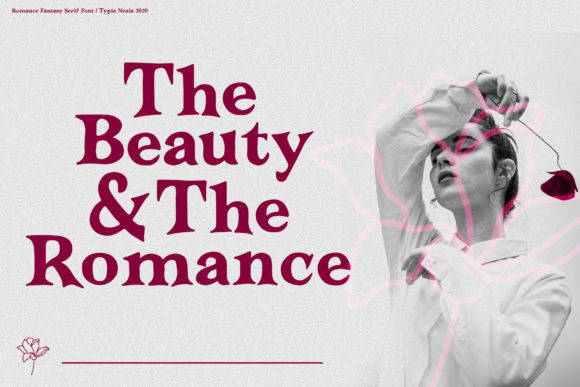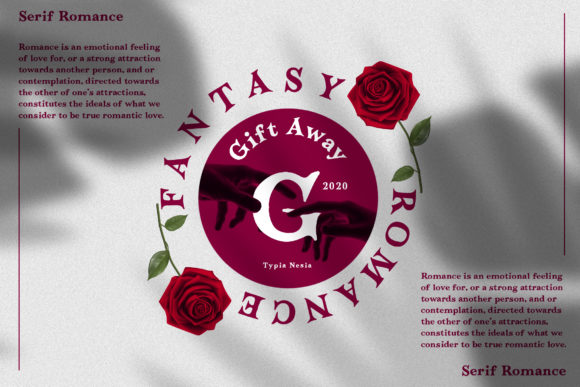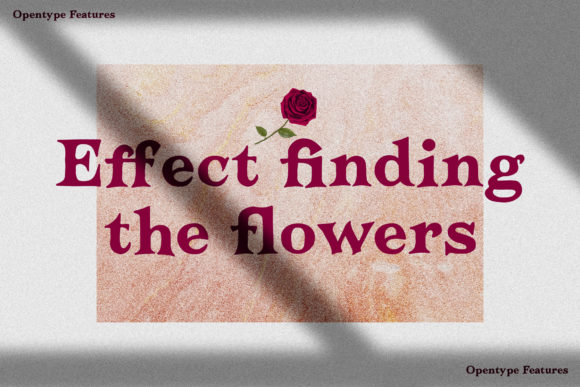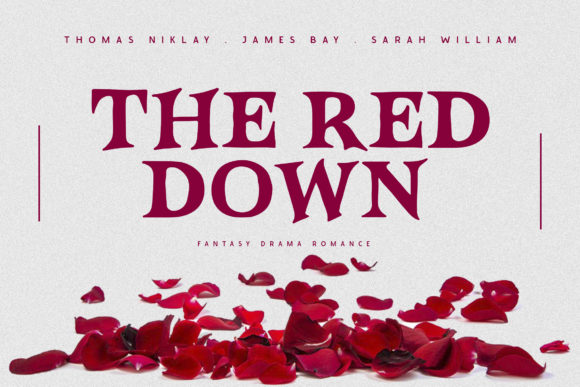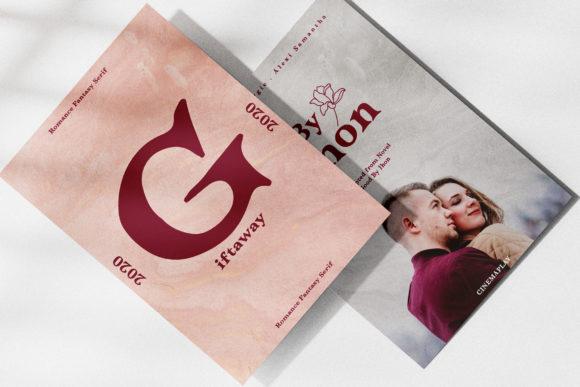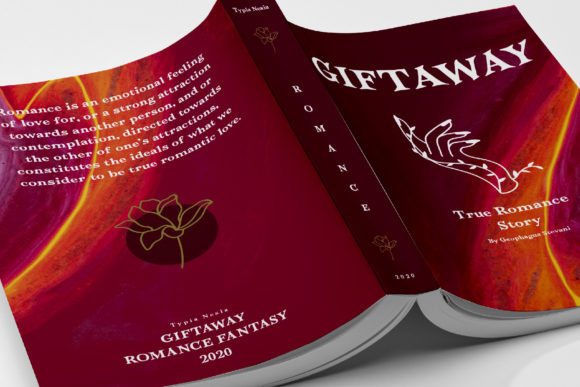
Giftaway Font: Elevate Your Designs with a Bold and Casual Serif
In the world of design, typography plays a crucial role in conveying messages, expressing creativity, and capturing the audience’s attention. When it comes to selecting the perfect font for your project, you want something that not only looks great but also aligns with your brand’s tone and personality. If you’re on the hunt for a bold and casual serif font that can elevate your designs, look no further than Giftaway Font.
Introducing Giftaway Font
Giftaway is a bold and casual serif font designed to add a touch of sophistication and elegance to your projects. With its unique blend of classic and modern elements, this font is perfect for designers and crafters looking to create stunning visual content. Whether you’re working on a luxury logo and branding, classy editorial design, magazine, fashion promotional materials, boutique branding, stationery design, blog design, modern advertising design, card invitation, art quote, home decor, book/cover title, or special events, Giftaway Font is an excellent choice.
Key Features of Giftaway Font
- Bold and Casual: Giftaway Font boasts a bold and casual style that’s perfect for making a statement. Its serif design adds a touch of sophistication, while its casual tone keeps it approachable and friendly.
- Versatile: This font is incredibly versatile and can be used for a wide range of projects, from luxury branding to editorial design, and even home decor.
- Elegant: Giftaway Font exudes elegance and sophistication, making it perfect for high-end designs, fashion promotions, and special events.
- Easy to Read: Despite its bold style, Giftaway Font is easy to read, making it perfect for body text, headings, and titles.
Use Cases for Giftaway Font
Giftaway Font is an excellent choice for a variety of design projects, including:
- Luxury Logo and Branding: Create a lasting impression with a bold and elegant logo that showcases your brand’s personality.
- Classy Editorial Design: Elevate your magazine, newspaper, or blog with a sophisticated font that’s easy to read.
- Fashion Promotional Materials: Make a statement with bold and eye-catching promotional materials that showcase your brand’s style.
- Boutique Branding: Create a unique and memorable brand identity that reflects your boutique’s personality.
- Stationery Design: Add a touch of elegance to your stationery, including business cards, letterheads, and envelopes.
- Blog Design: Create a visually appealing blog that showcases your writing style and personality.
- Modern Advertising Design: Grab attention with bold and eye-catching ads that showcase your brand’s message.
- Card Invitation: Create stunning invitations for special events, including weddings, birthdays, and anniversaries.
- Art Quote: Add a touch of sophistication to your art quotes and make them more impactful.
- Home Decor: Use Giftaway Font to create beautiful home decor designs, including wall art, posters, and prints.
- Book/Cover Title: Create a stunning book cover that showcases your book’s title and personality.
- Special Events: Use Giftaway Font to create memorable designs for special events, including conferences, festivals, and exhibitions.
Why Choose Giftaway Font?
With so many fonts available, why choose Giftaway Font? Here are a few reasons:
- Unique Style: Giftaway Font boasts a unique blend of classic and modern elements that sets it apart from other fonts.
- High-Quality Design: This font is designed with high-quality craftsmanship, ensuring that it looks great in any design project.
- Easy to Use: Giftaway Font is easy to install and use, making it perfect for designers and crafters of all levels.
- Versatile: This font is incredibly versatile and can be used for a wide range of projects.
In conclusion, Giftaway Font is an excellent choice for designers and crafters looking for a bold and casual serif font that can elevate their designs. With its unique style, high-quality design, and versatility, this font is perfect for a wide range of projects. Whether you’re working on a luxury logo and branding, classy editorial design, or special events, Giftaway Font is sure to make a lasting impression.